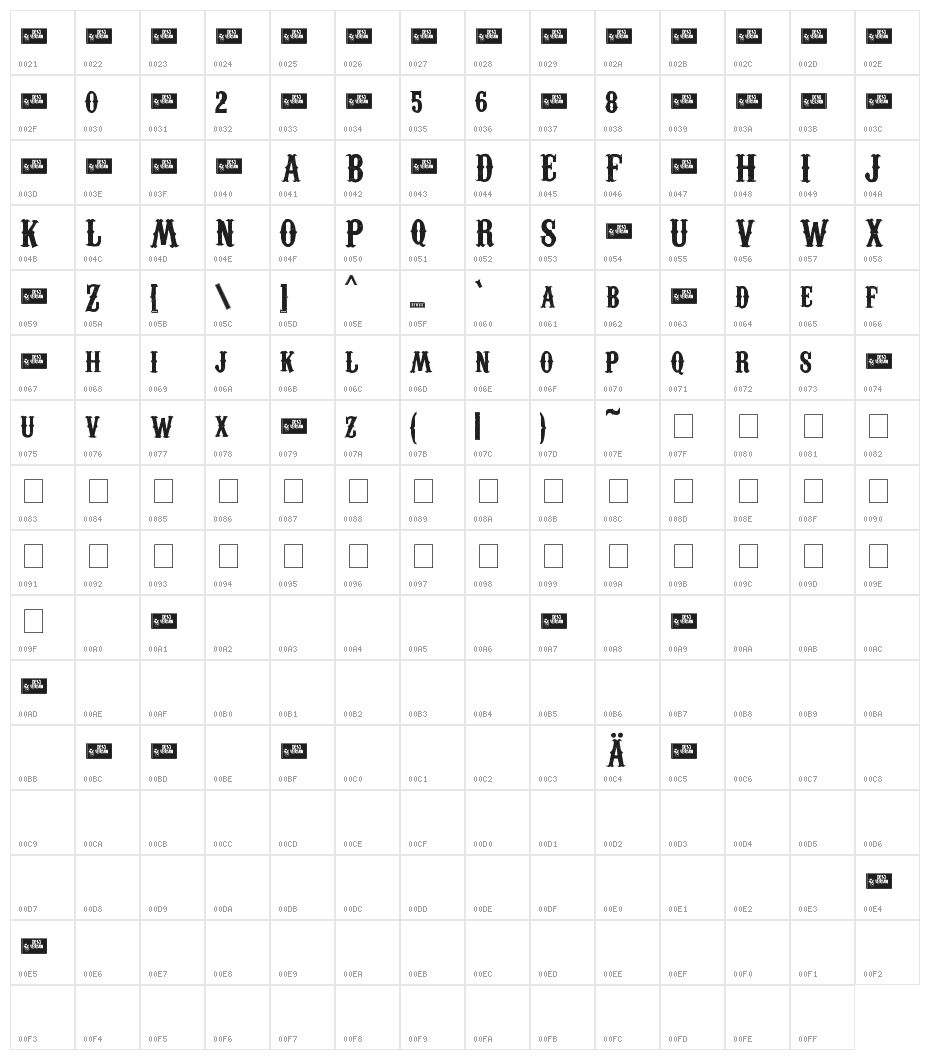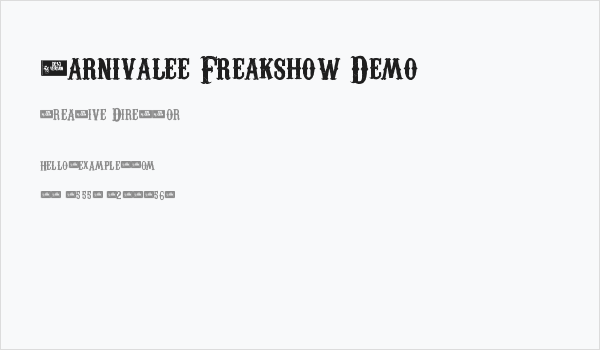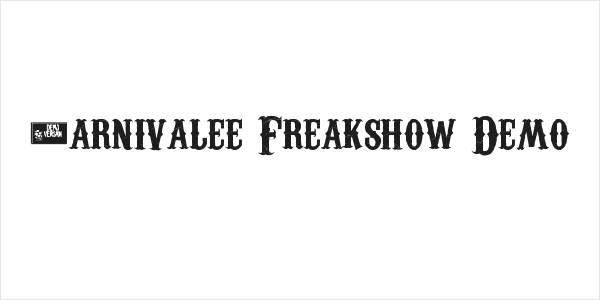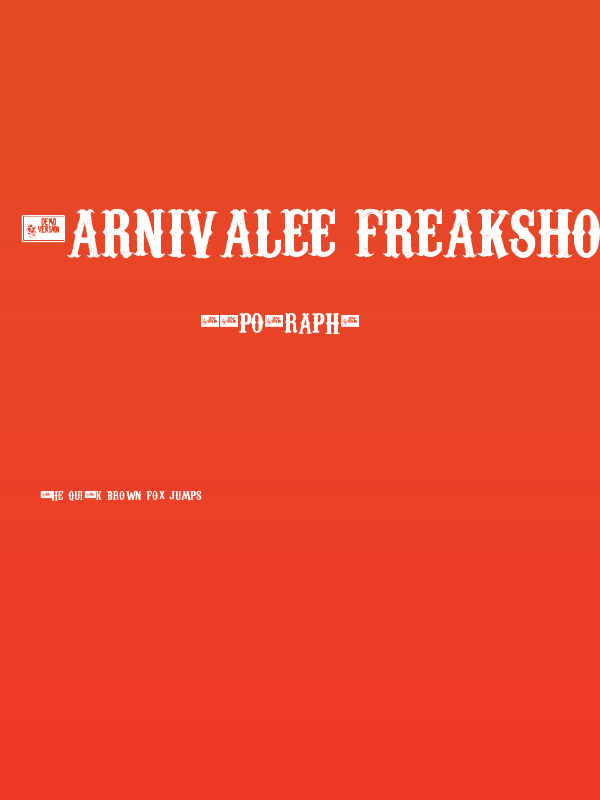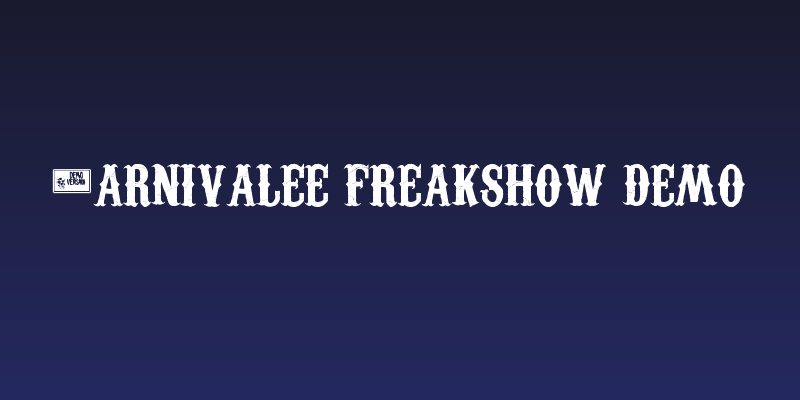
Carnivalee Freakshow Demo Font
Carnivalee Freakshow Demo Description
This font exudes a bold and theatrical presence, reminiscent of vintage circus and carnival posters. Each character is adorned with intricate, decorative elements that evoke a sense of mystery and excitement. The bold strokes and unique embellishments give it a distinctive, eye-catching appearance. The font's style is both playful and dramatic, making it perfect for creating a sense of spectacle. Its ornate design is ideal for projects that require a touch of whimsy and nostalgia, capturing the essence of a bygone era with a modern twist.
| Proposed Projects | Ideal for posters, event invitations, themed parties, and branding that requires a vintage or theatrical touch. |